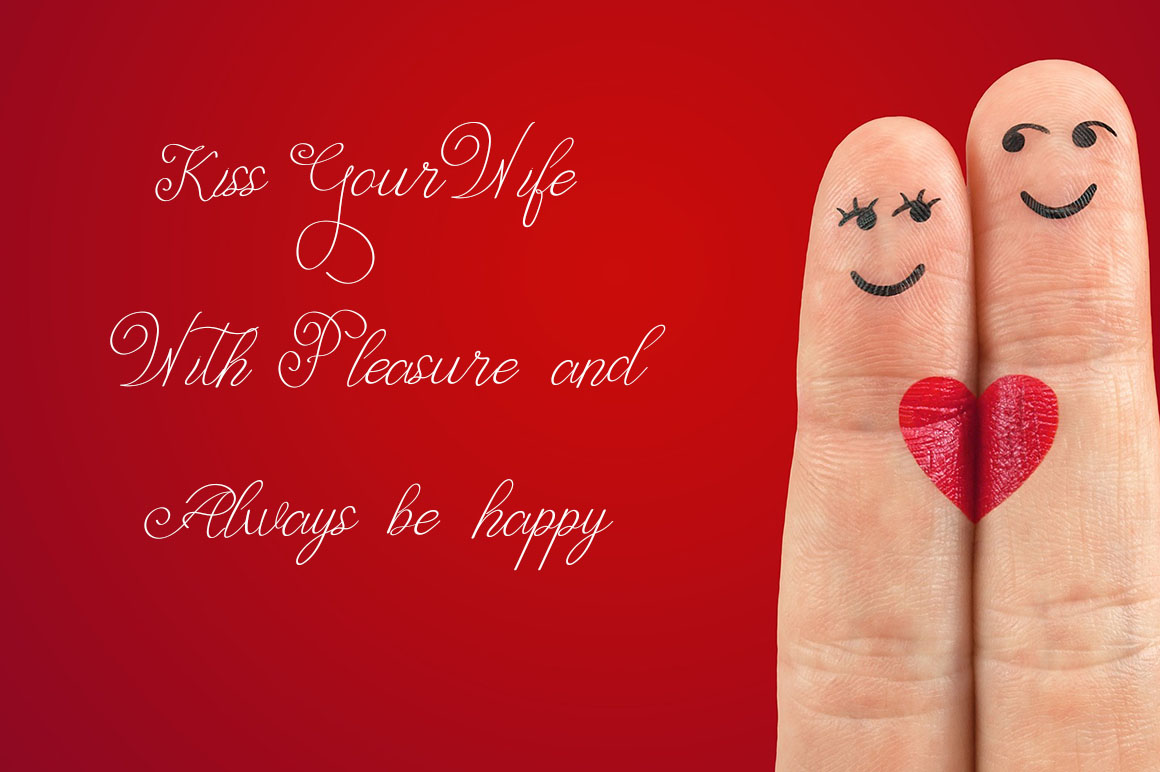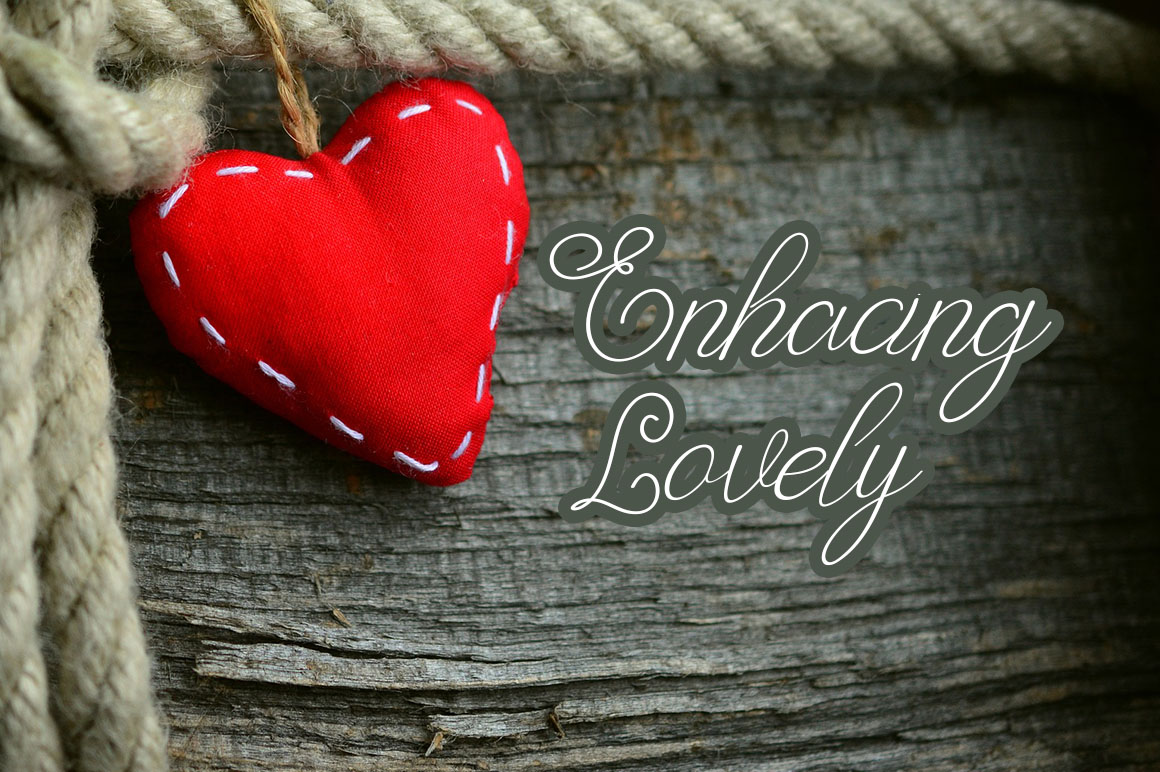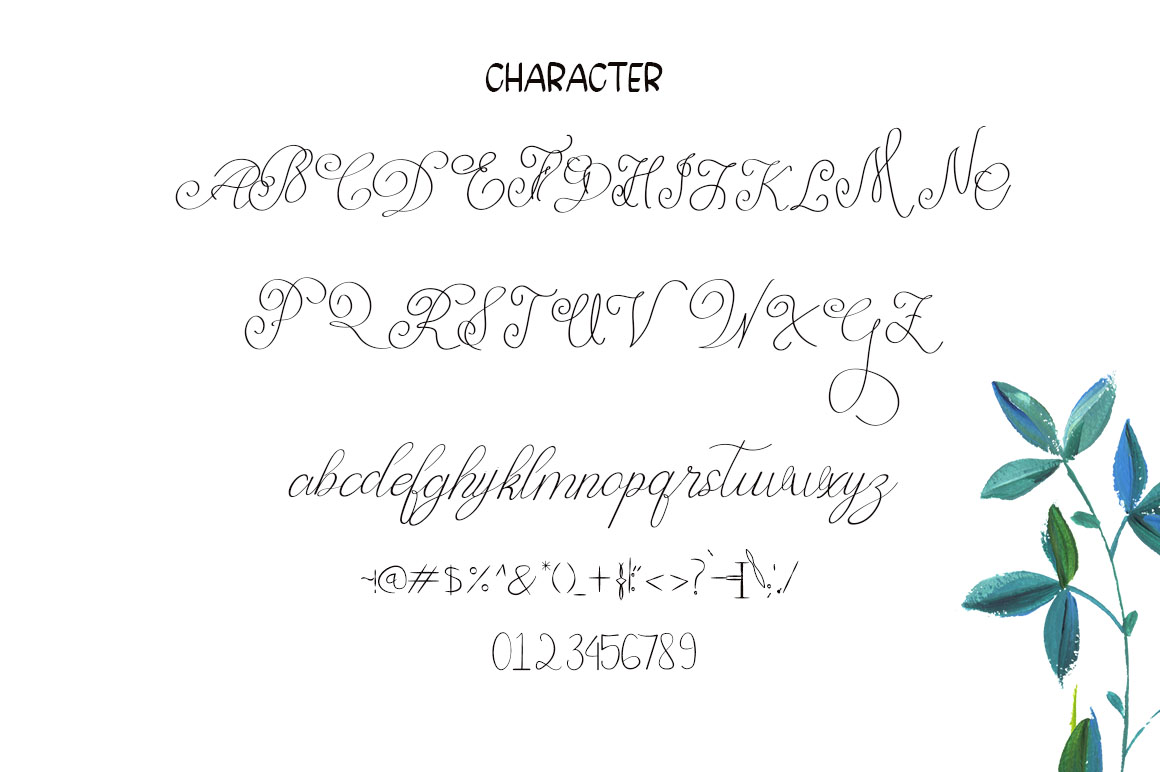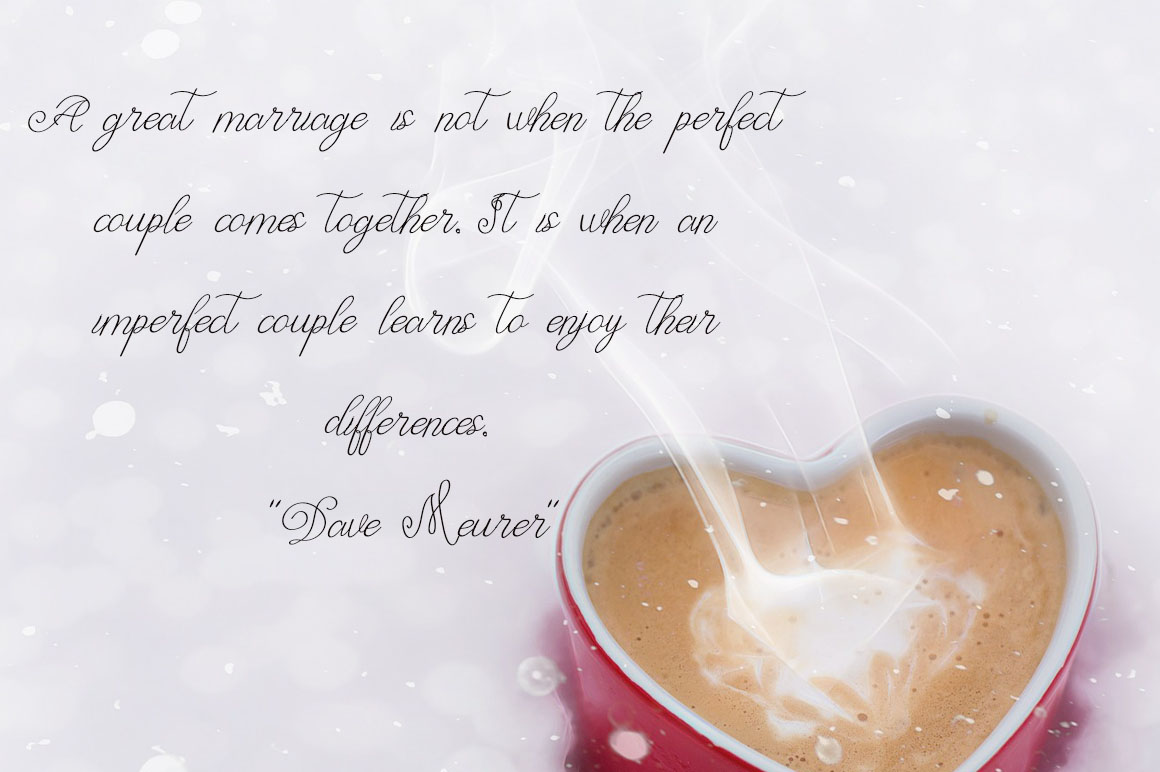
Dear Wedding Calligraphy Font
It’s a thin lettered and delicate script font that exudes elegance and class. This font was particularly crafted for those who need a beautiful and refreshing look to their designs.
Dear Wedding is a thin lettered and delicate script font that exudes elegance and class. This font was particularly crafted for those who need a beautiful and refreshing look to their designs.